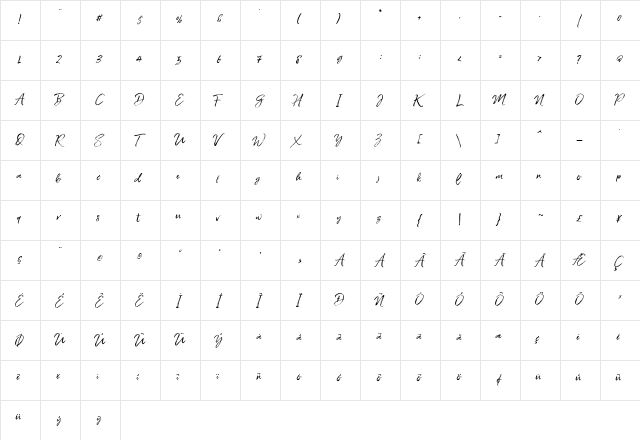
Coldays Memories Brush Regular
| Foundry | Siwox Core LineType |
| Designer | Sarwo Edi |
Design Context for Coldays Memories Brush Typeface
Coldays Memories Brush flows with the natural rhythm of handwritten lettering, making it ideal for designs that call for warmth and personal expression.